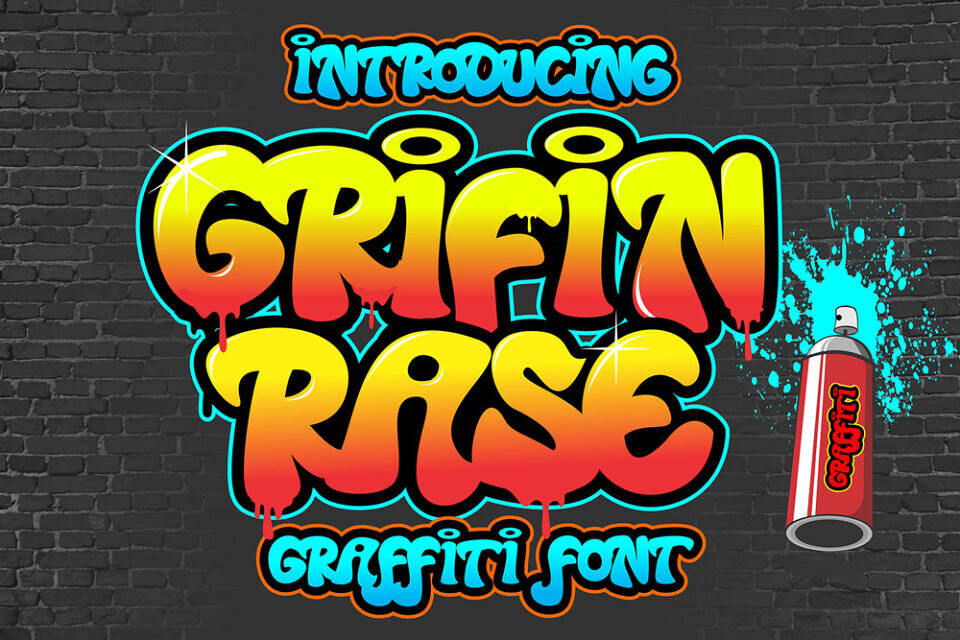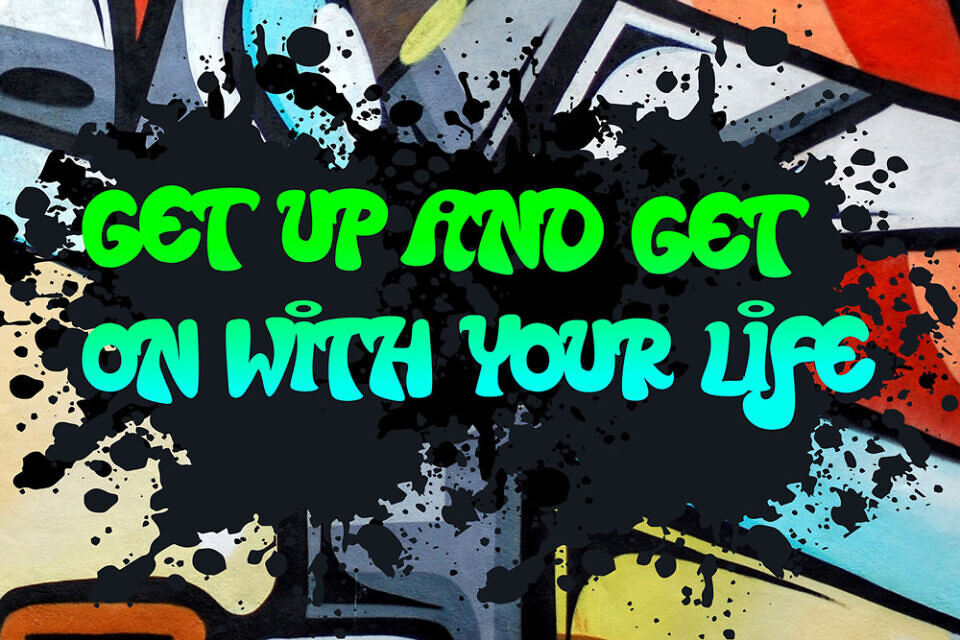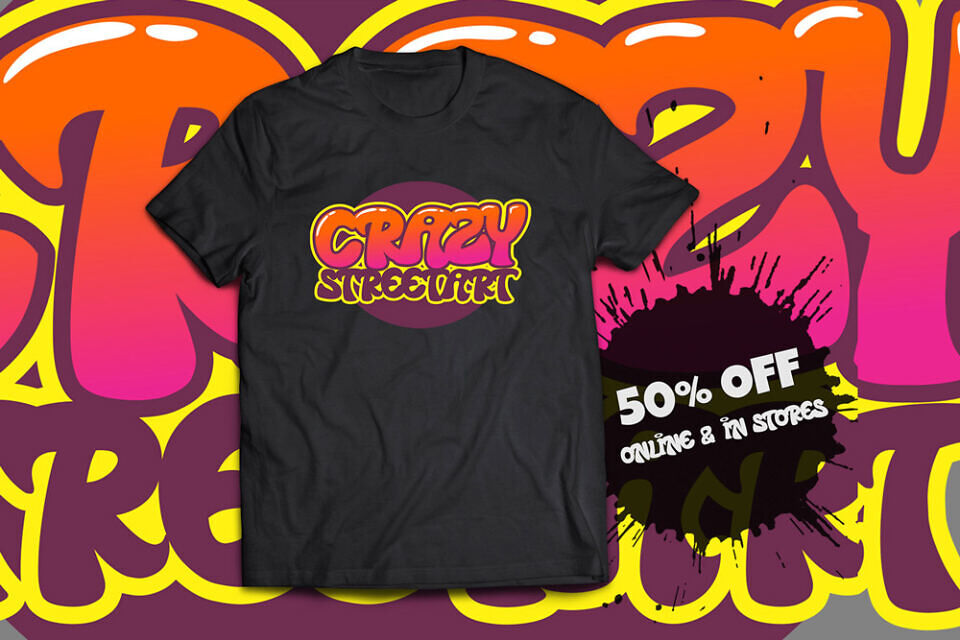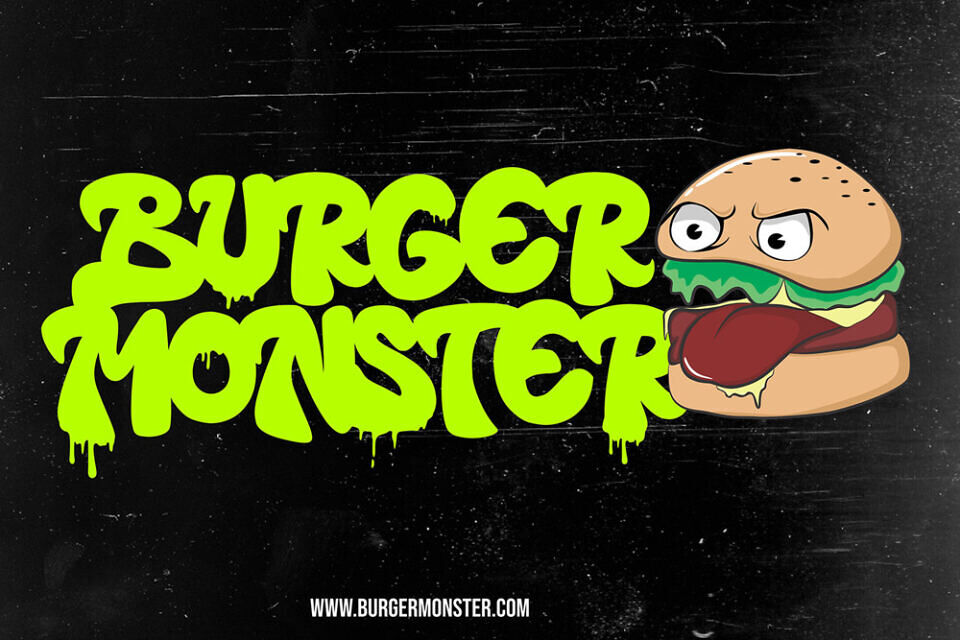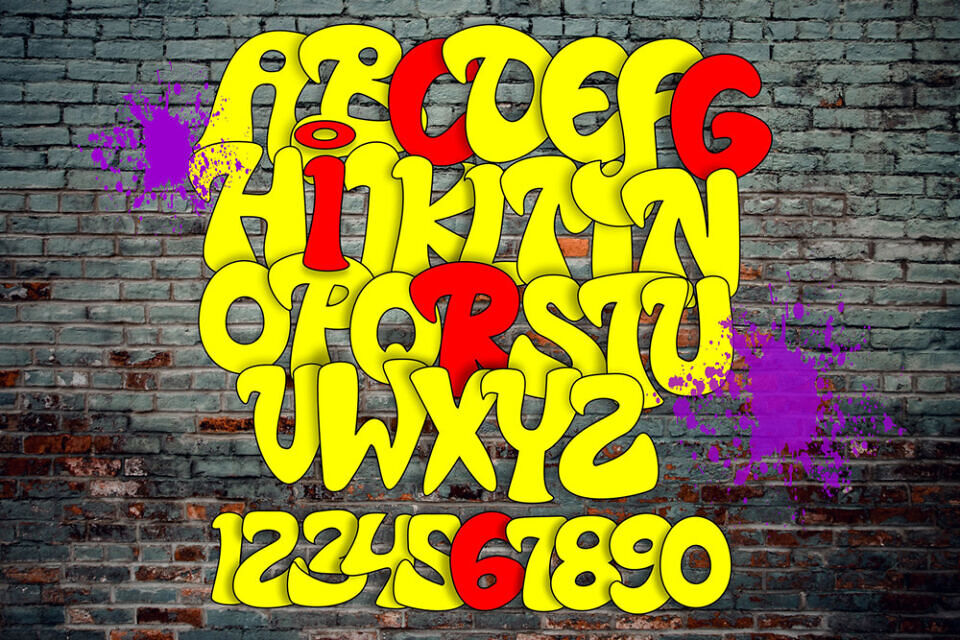
Grifin Rase is a modern wavy graffiti font inspired by flowing street lettering, urban graffiti murals, underground spray paint culture, and contemporary streetwear typography. Designed with dynamic curves and expressive wave-inspired letterforms, this urban display font delivers energetic visual movement for creative projects that demand bold street personality.
Whether you are building streetwear branding, gaming graphics, music artwork, social media visuals, or poster designs, Grifin Rase helps your typography stand out with authentic urban energy.